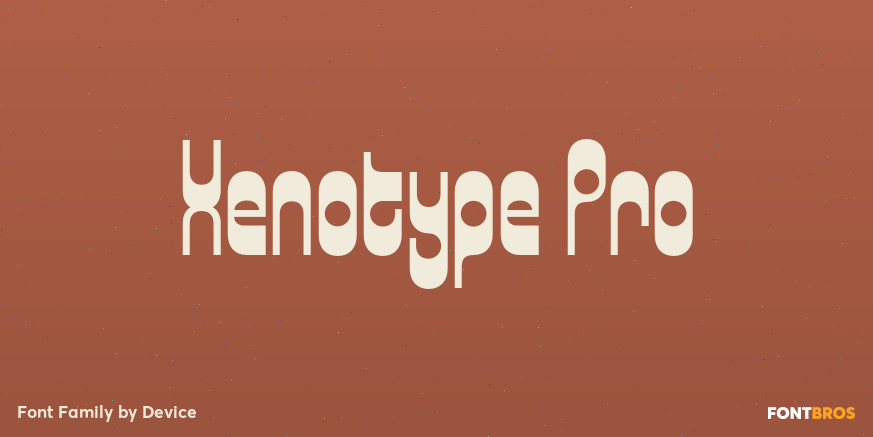
HomeFont BrosFuturisticXenotype Pro FuturisticGroovy (1966-1978) Xenotype Pro FacebookXPinterestWhatsApp 1 of 1 About Xenotype Pro Xenotype is an examination of heavy horizontal weighting and develops ideas underlying 60s and 70s headline faces.  DOWNLOAD ON FONT BROSThis font is sold and delivered by Font Bros. Font Canyon may earn a commission if you buy through this link. People also explored Natural Font Honey Bunney Font Piledrive Walts Font Schatzie Font Lightning Crashes Font Vaclice Script Font Green Fern Font Beautiful Nature Font Hillaw Font 232 0 TagsXenotype Pro Font Previous articleZolano Sans BTNNext articleGracyn LEAVE A REPLY Cancel reply Comment: Please enter your comment! Name:* Please enter your name here Email:* You have entered an incorrect email address! Please enter your email address here Website: Save my name, email, and website in this browser for the next time I comment. Personal Use Free Soulties Personal Use Free Read more about this font Dear Monita Personal Use Free Read more about this font Lanilla Personal Use Free Read more about this font Coffete Personal Use Free Read more about this font BLOG To increase your work productivity, choose the most readable fonts. In today's fast-paced work environment, where digital communication and information consumption are integral to our daily routines, the choice of fonts can significantly impact... Where to Buy American Fonts Online in 2024 5 Fonts That Will Dominate Design Trends in 2026 Using Fonts in Digital Marketing: Tips to Strengthen Your Brand Identity